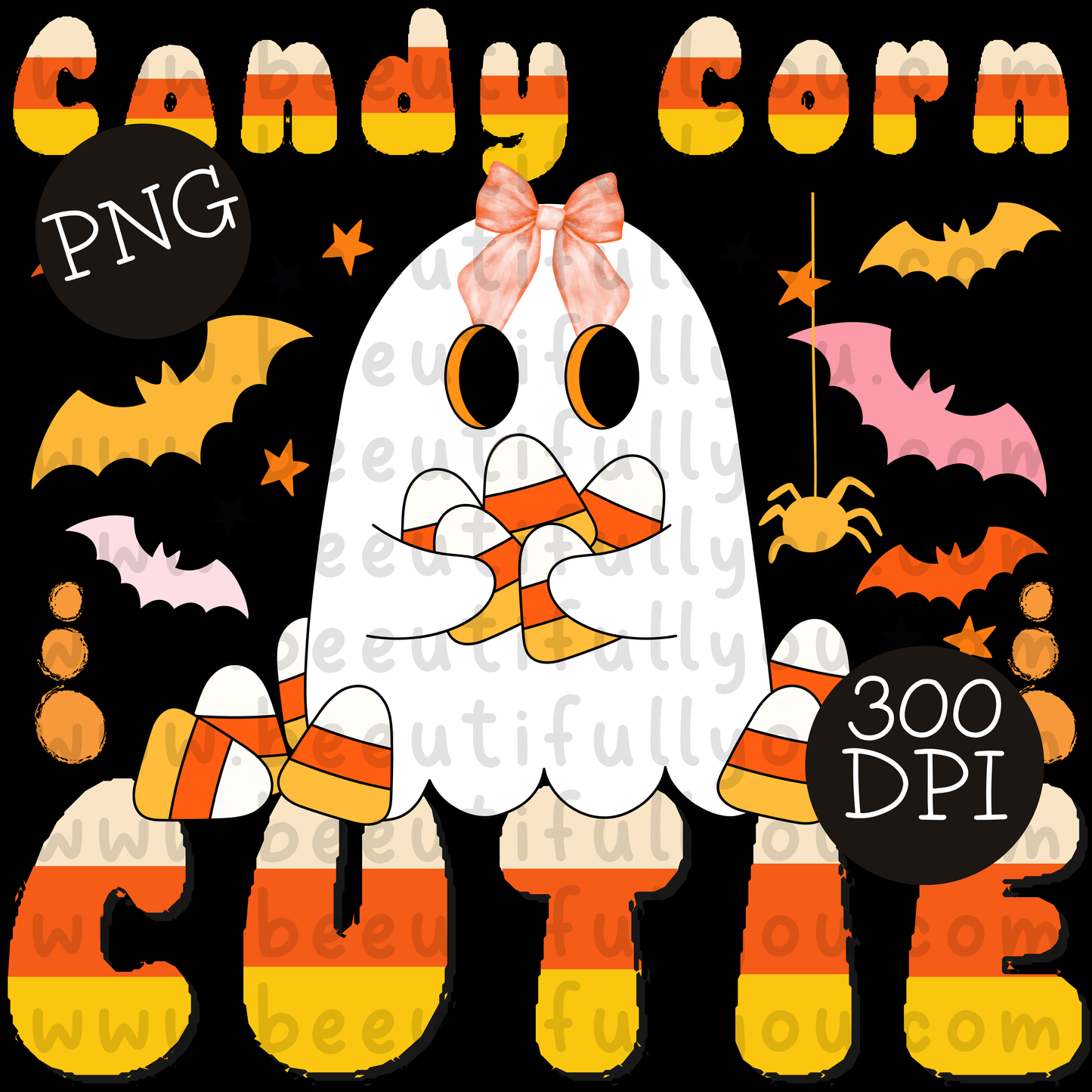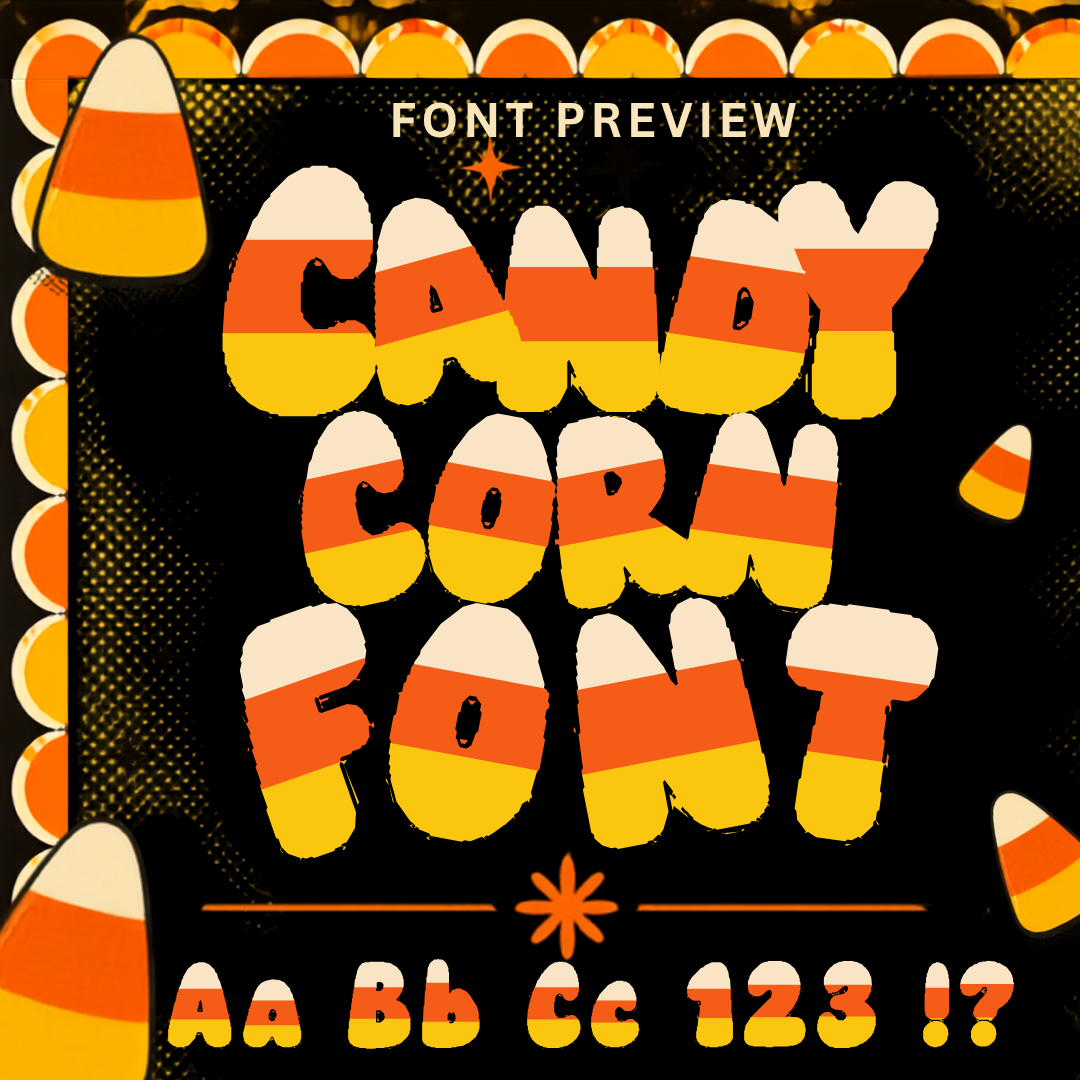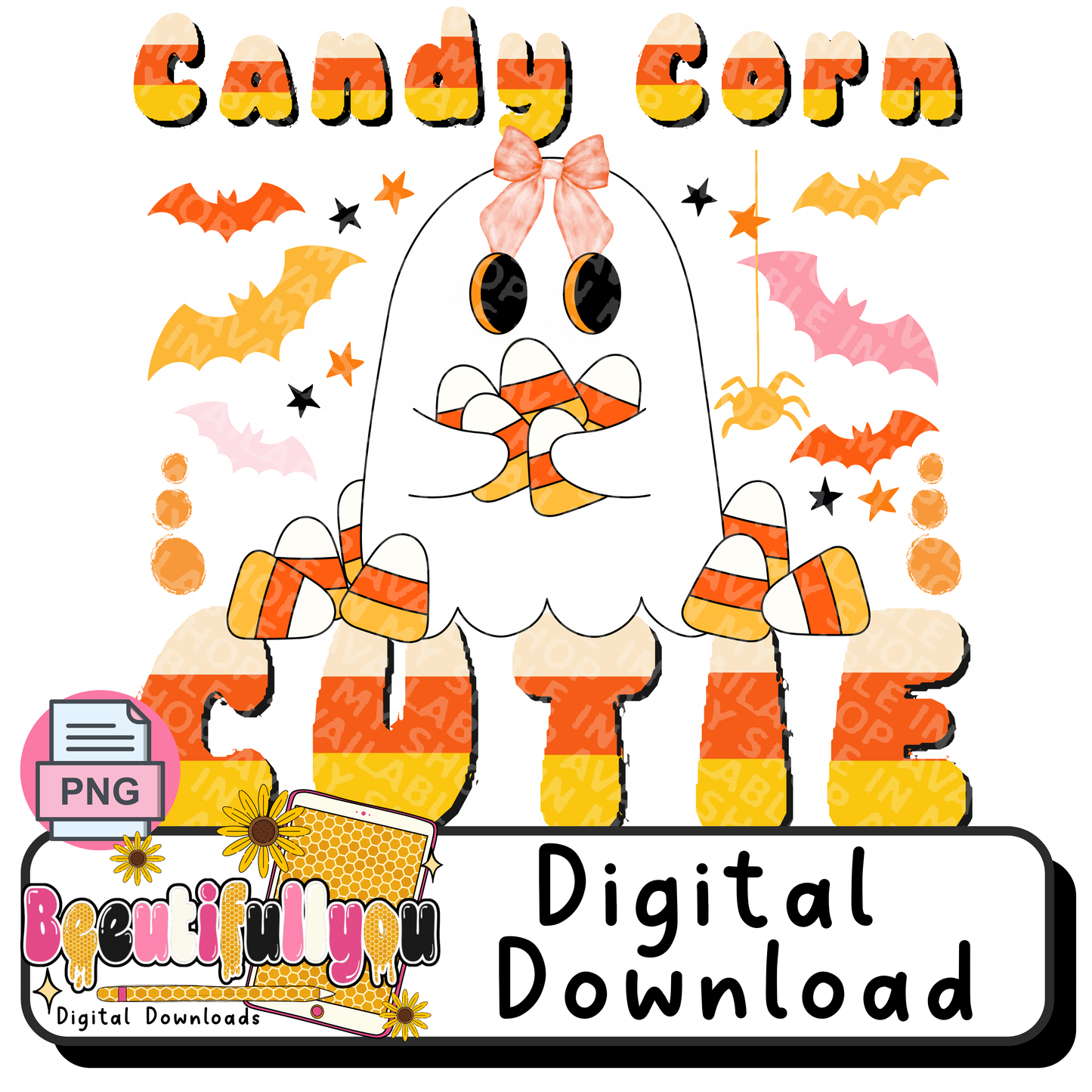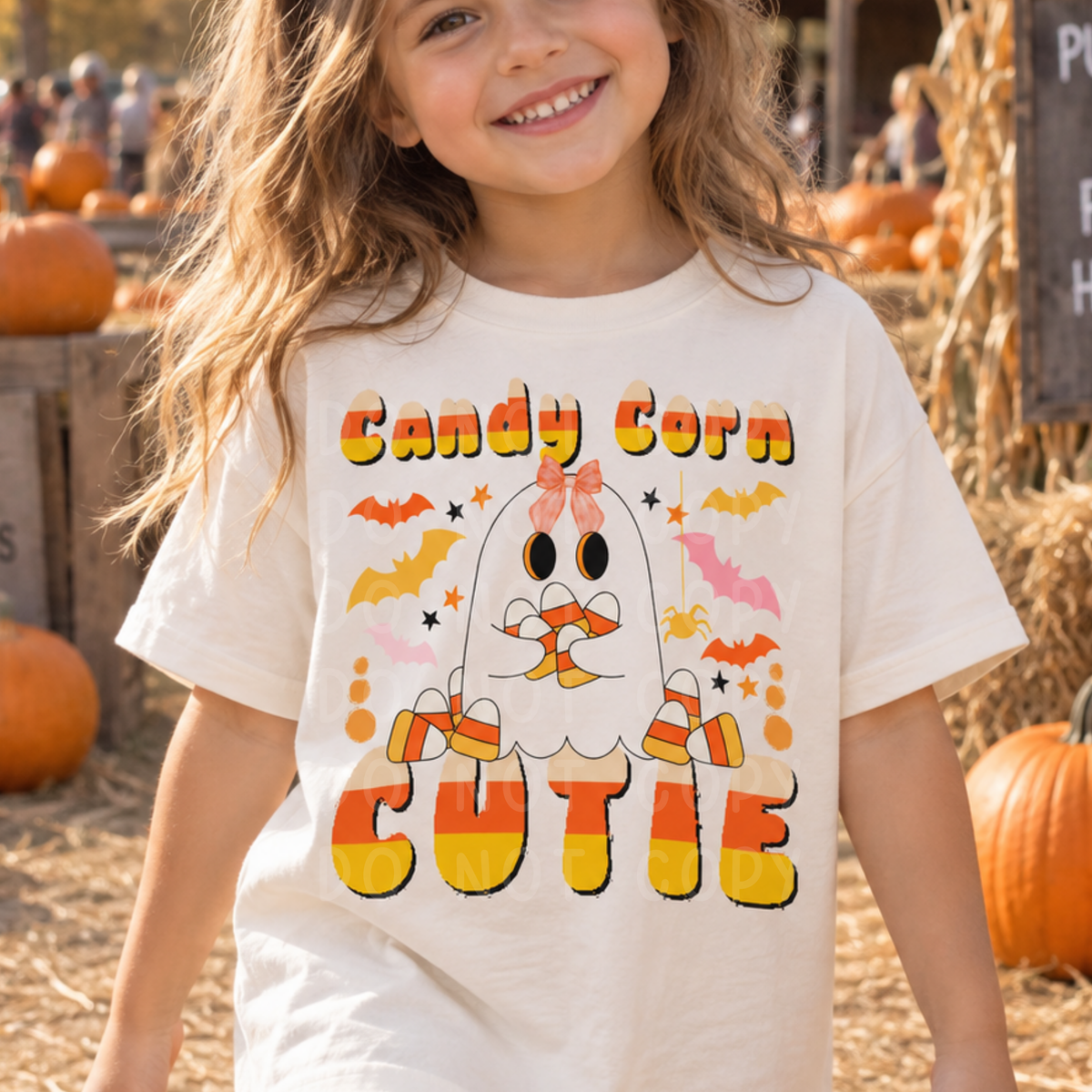
Candy Corn Cutie PNG + Candy Corn OTF Font Duo
This Candy Corn Cutie Duo includes both the finished Candy Corn Cutie PNG design and the coordinating Candy Corn OTF font shown in the preview.
The completed design features a sweet little ghost surrounded by candy corn, colorful bats, stars, a spider, and playful Halloween details. The matching font carries the same classic cream, orange, and yellow candy corn coloring, giving you a fun coordinating typeface for your own seasonal projects.
The font preview shows the coordinating candy corn-style letterforms along with examples of uppercase, lowercase, numbers, and punctuation.